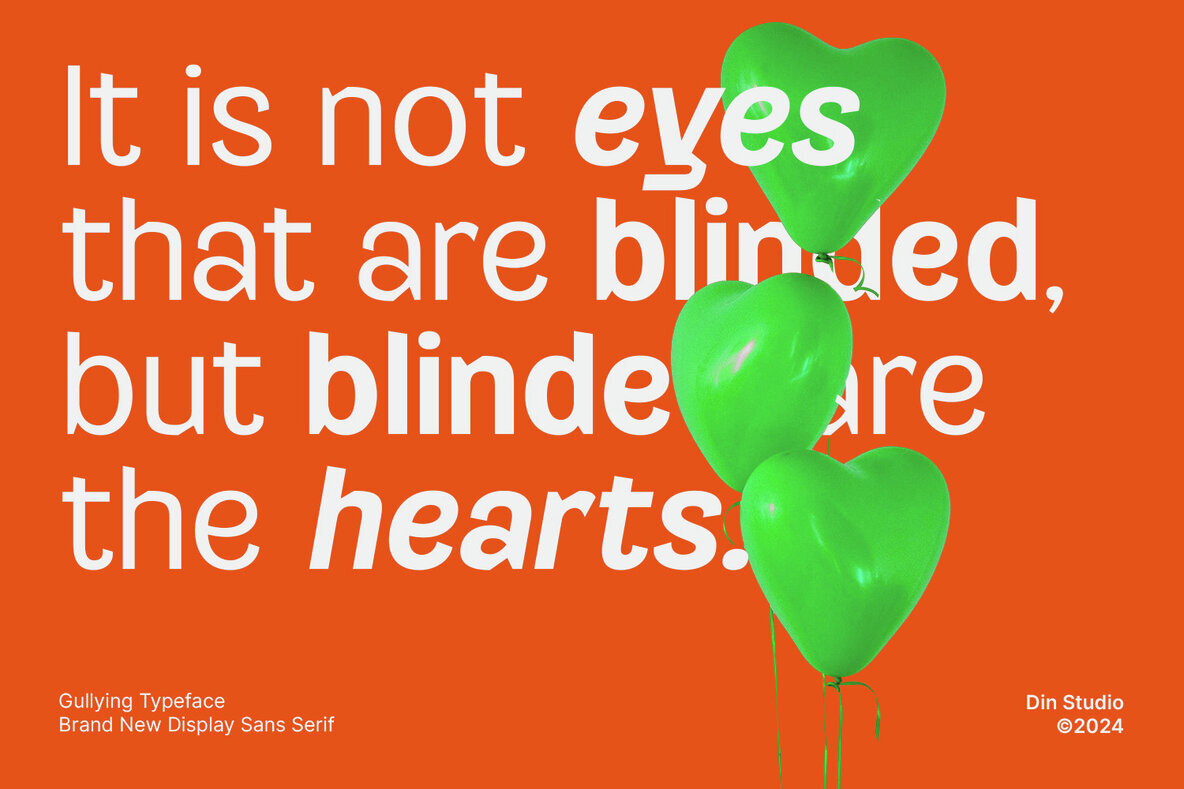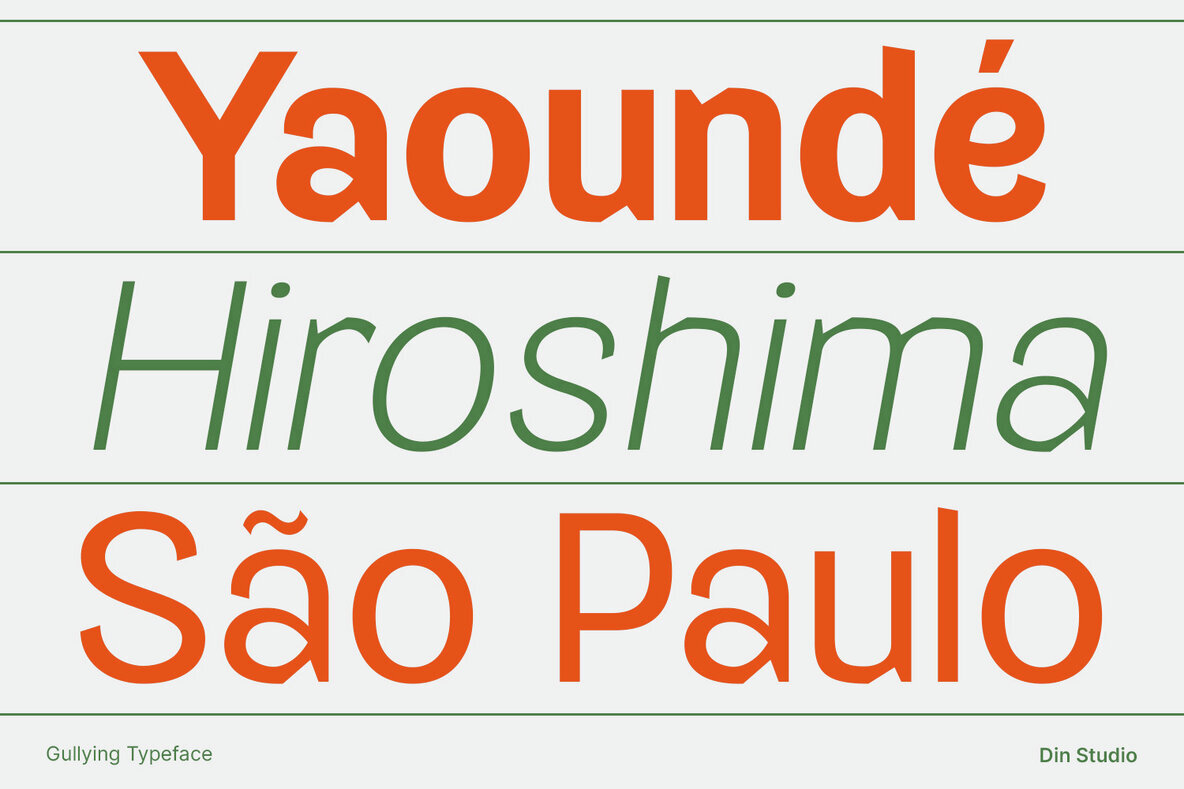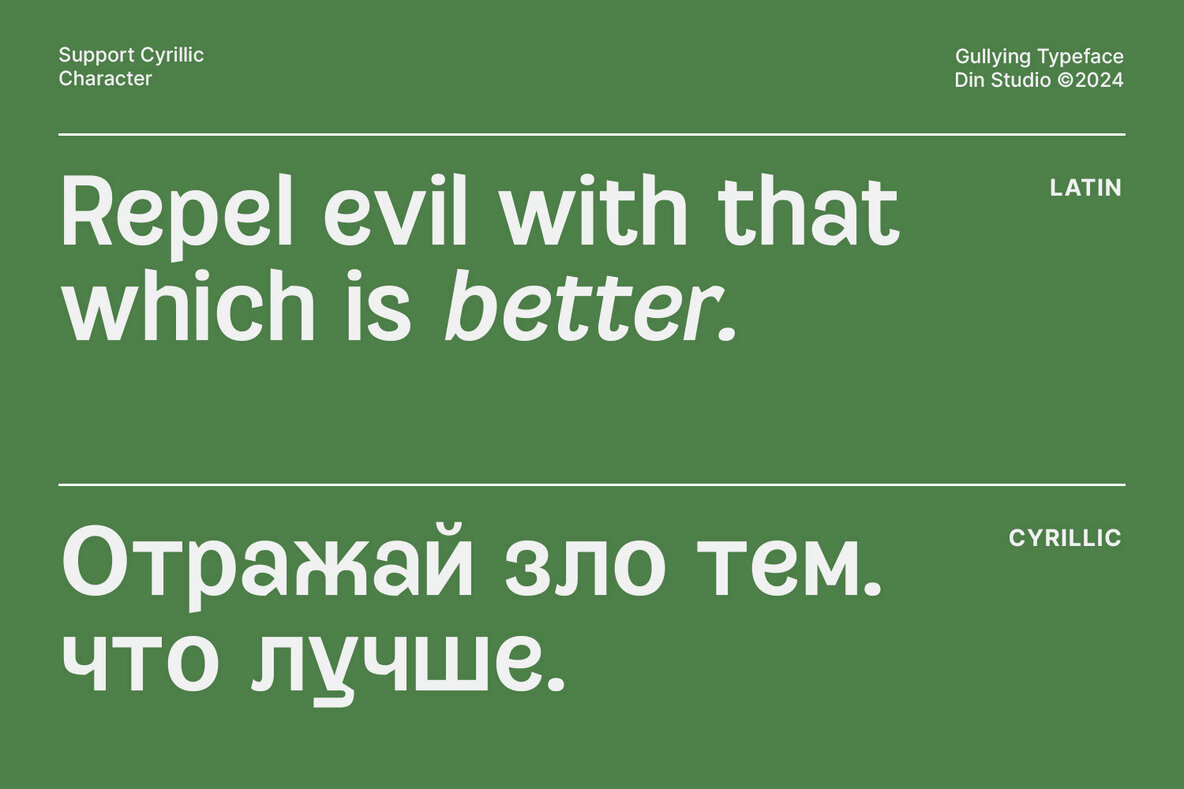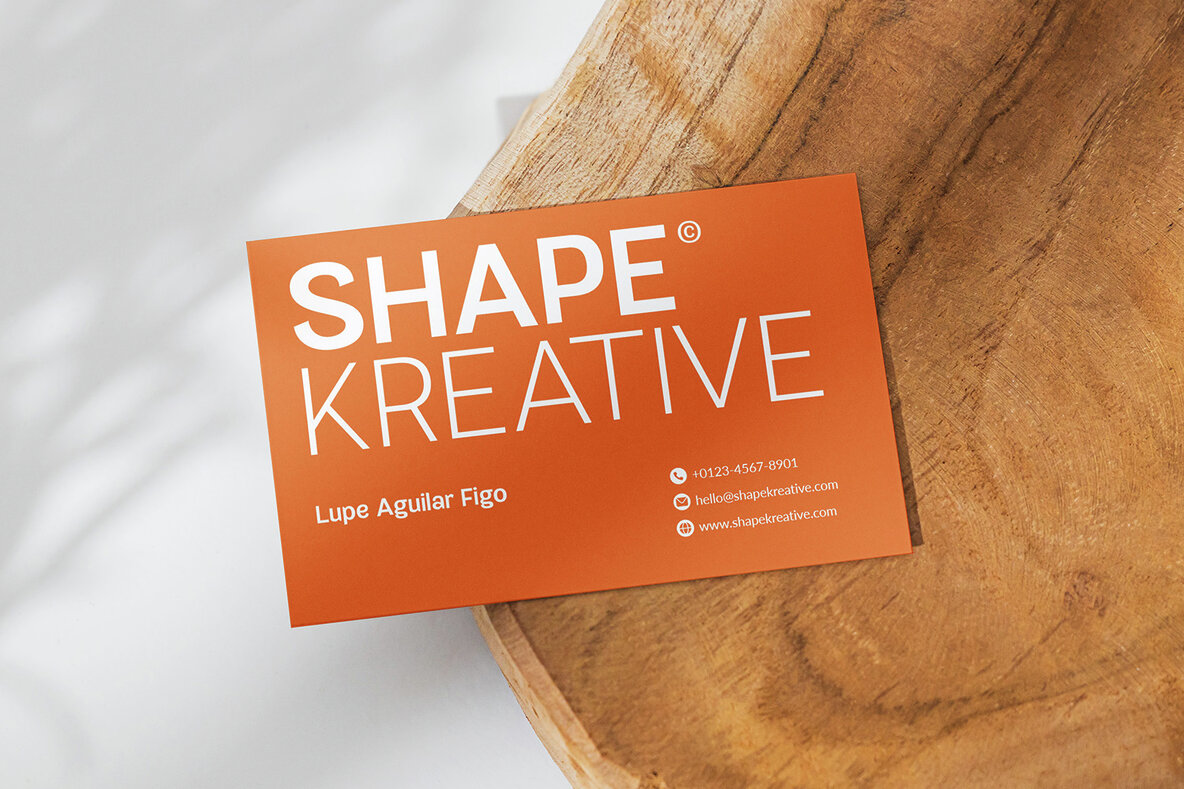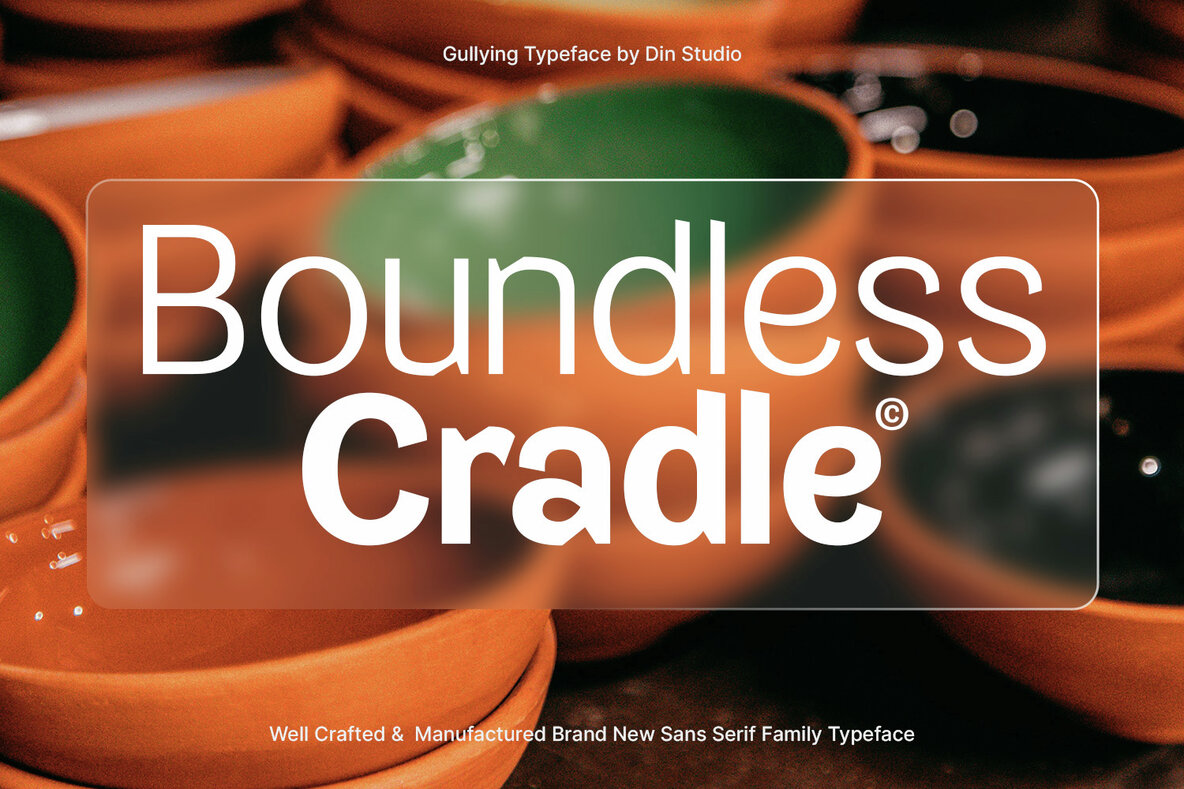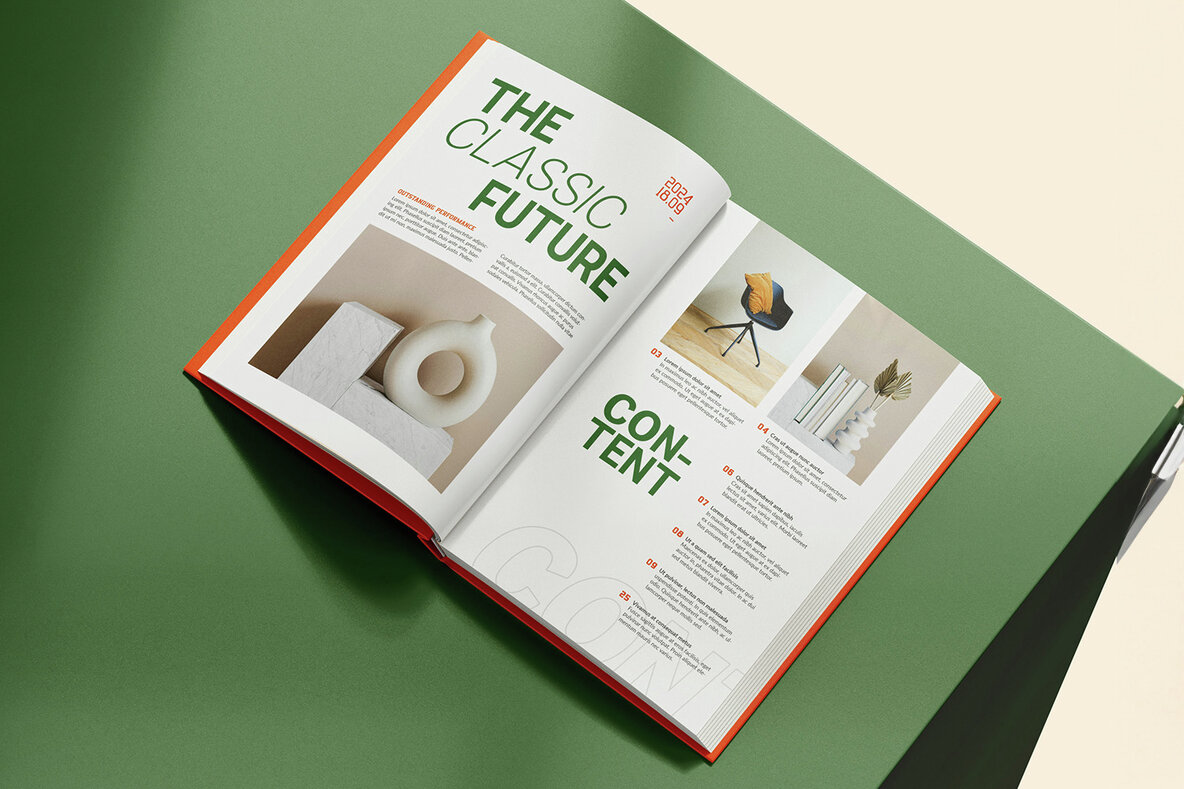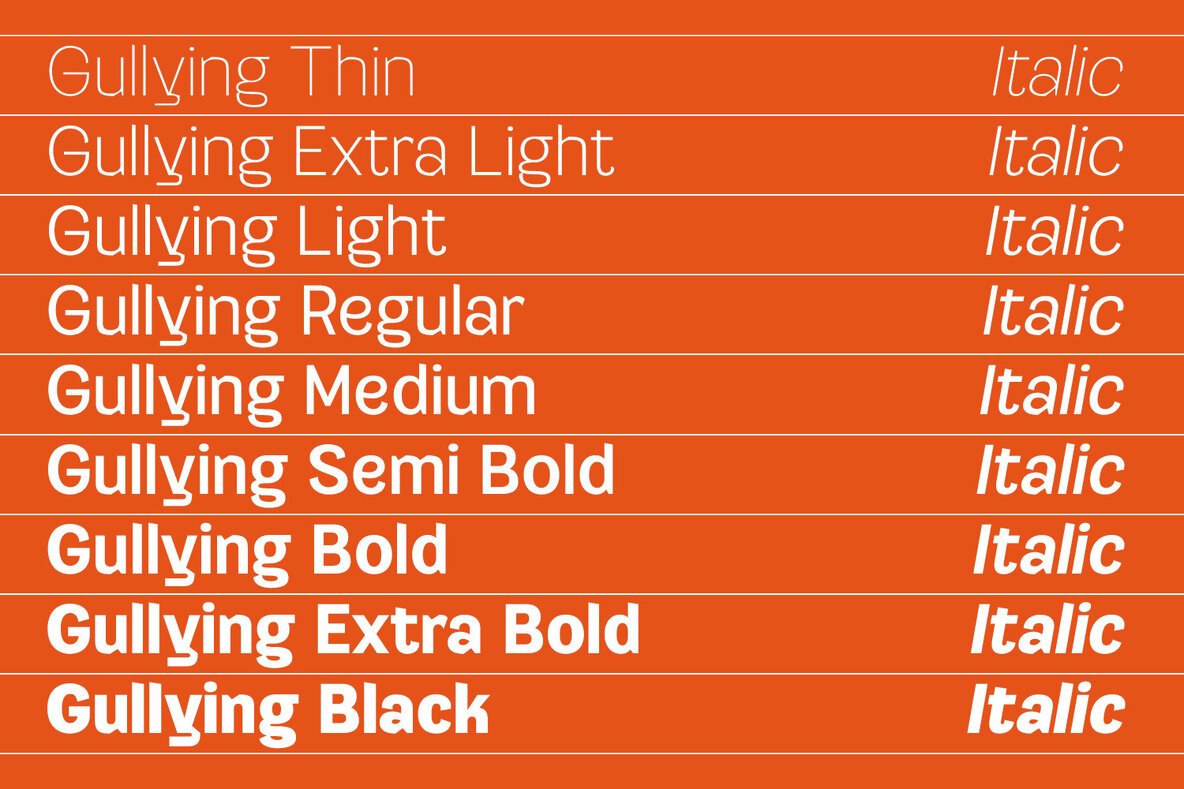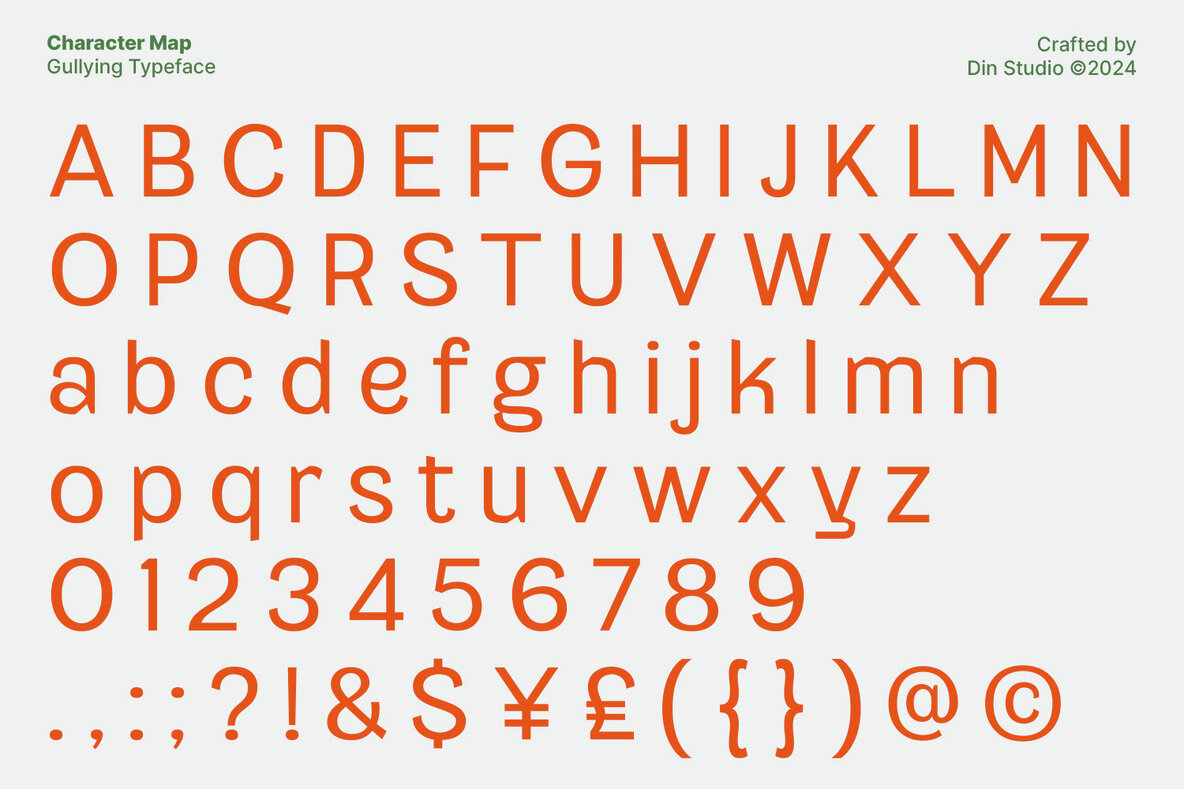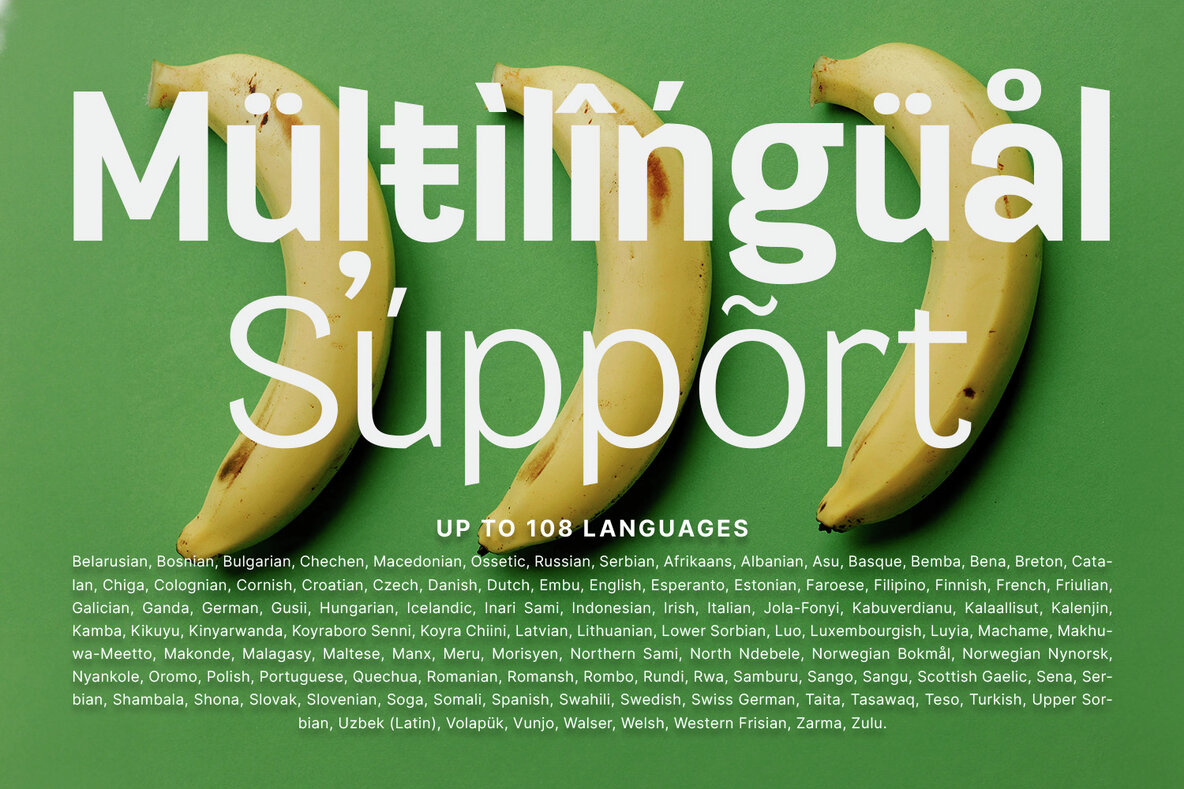
Gullying Font
Gullying is a refined sans serif display font family that embodies simplicity and modernity. Crafted with nine versatile weights, each available in both regular and italic styles, Gullying strikes a perfect balance between clarity and sophistication. Its clean lines and contemporary shapes are perfect for minimalist designs, ensuring a polished and modern aesthetic. This font family captures attention with its effortless elegance and functional design.
Featuring multilingual support, PUA encoding, and comprehensive numerals and punctuation, Gullying is ideal for a range of design projects. Whether you're creating headlines, logos, posters, invitations, branding materials, or editorial layouts, this font offers the versatility you need. Explore the font preview to discover the numerous ways Gullying can enhance your design work.